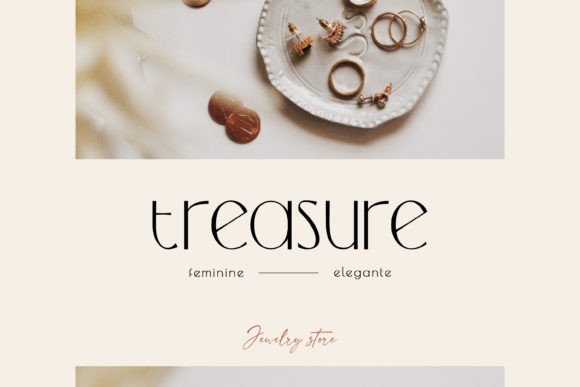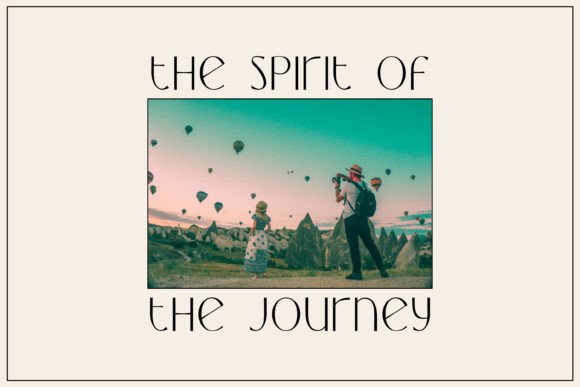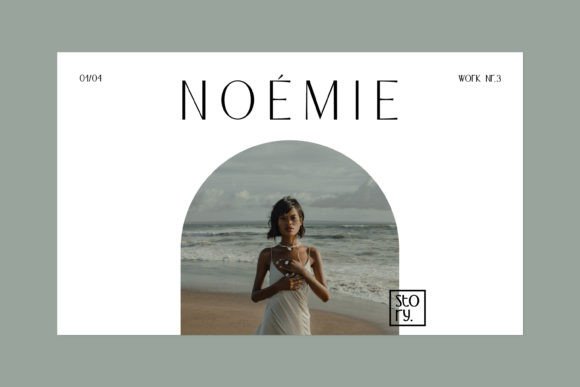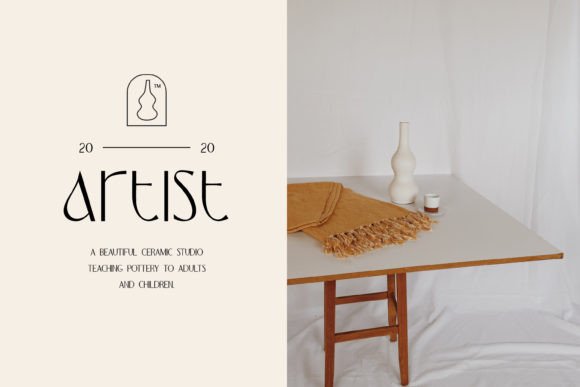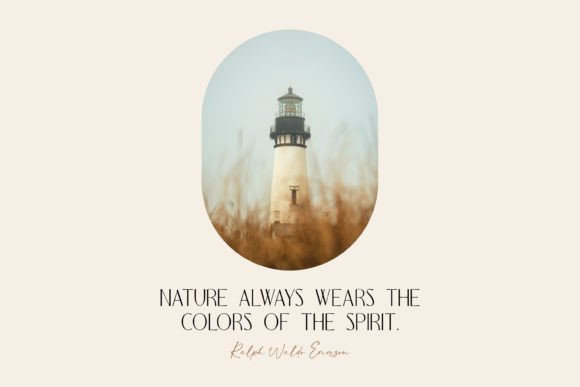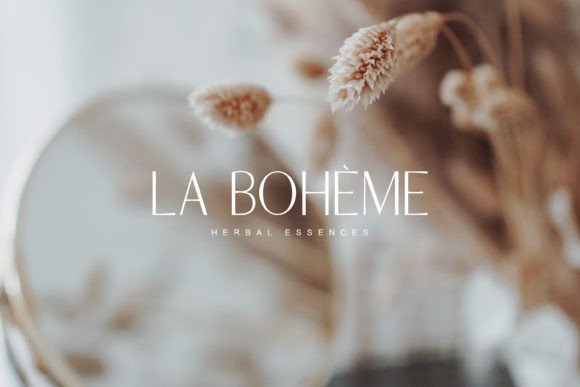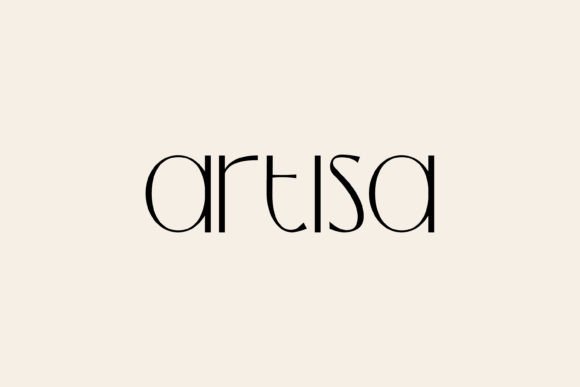
Introducing Artisa Font: Elevate Your Brand with Elegance and Sophistication
In the world of typography, a font can make or break the visual identity of a brand. For designers and crafters seeking to create a lasting impression, Artisa Font is an excellent choice. This elegant, minimal typeface exudes a luxurious vibe, perfect for brands aiming to convey modernity and fashion-forward thinking.
The Artisa Advantage: Unique Characteristics
Artisa Font boasts several distinctive features that set it apart from other typefaces. One of its most notable characteristics is its neat and clean design, which lends itself to a sophisticated and refined aesthetic. The font’s uppercase and lowercase letters are designed to be the same height, creating a sense of uniformity and balance.
This unique feature makes Artisa Font ideal for use in branding, packaging, and advertising, where visual cohesion is crucial. Whether you’re designing a logo, label, or brochure, Artisa Font provides a versatile and stylish solution.
Modern and Fashionable Appeal
Artisa Font’s modern and fashionable appeal is undeniable. Its sleek lines, subtle curves, and generous spacing create a sense of airiness and sophistication. This font is perfect for brands seeking to convey a sense of luxury, elegance, and refinement.
From high-end fashion labels to upscale lifestyle brands, Artisa Font is an excellent choice for designers looking to create a lasting impression. Its versatility also makes it suitable for use in various design applications, including:
- Packaging and labeling
- Web design and digital media
Design and Crafting Applications
Artisa Font is not just limited to digital design; it’s also perfect for crafters and makers. Whether you’re creating handmade cards, gift tags, or DIY projects, this font can add a touch of elegance and sophistication to your work.
With Artisa Font, crafters can:
- Create beautiful, hand-stamped designs
- Personalize gifts and cards with a touch of luxury
- Add a sophisticated touch to DIY projects
Why Choose Artisa Font?
With so many fonts available, why choose Artisa Font? Here are just a few reasons:
- Elegance and sophistication: Artisa Font exudes a sense of luxury and refinement, perfect for high-end brands and designers.
- Versatility: This font is suitable for use in various design applications, from branding and packaging to web design and crafting.
- Unique characteristics: Artisa Font’s same-height uppercase and lowercase letters create a sense of uniformity and balance.
In conclusion, Artisa Font is an excellent choice for designers and crafters seeking to create a lasting impression. Its elegant, minimal design and luxurious vibe make it perfect for brands aiming to convey modernity and sophistication.
Whether you’re designing a logo, label, or DIY project, Artisa Font provides a versatile and stylish solution. With its unique characteristics, versatility, and elegance, Artisa Font is sure to elevate your brand and add a touch of sophistication to your design work.